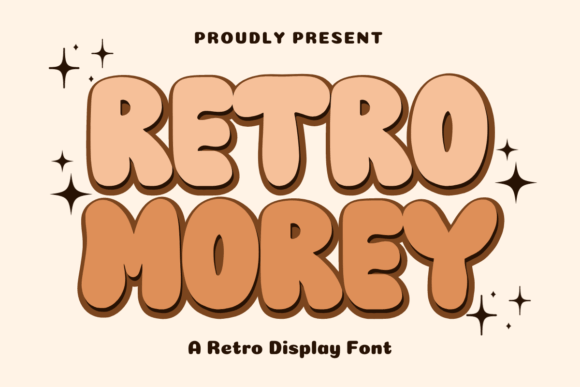
Introducing Retro Morey Font, the ultimate font for your print design needs. Created by SiapGraph, this display font is the epitome of versatility, style, and fun. Whether you're looking to add a touch of nostalgia to your greeting cards or create eye-catching headlines, Retro Morey is the perfect choice.
With its charming retro aesthetic, Retro Morey brings a unique and captivating vibe to any creative project. Its elegant curves and vintage-inspired details instantly transport your audience to a bygone era, evoking feelings of nostalgia and warmth. This font is a true game-changer, allowing you to effortlessly captivate your target audience.
When it comes to print design, Retro Morey reigns supreme. Its carefully crafted letterforms ensure clarity and readability, making it an excellent choice for headlines, posters, and advertisements. No matter the size or scale of your project, Retro Morey guarantees that your message will be delivered with utmost style and impact.
But Retro Morey doesn't stop at aesthetics alone. This font is designed to make a lasting impression, leaving your audience in awe of its artistic flair. Its playful and whimsical nature adds a touch of personality to your designs, making them truly one-of-a-kind. Stand out from the crowd and let Retro Morey elevate your creative vision to new heights.
Not only does Retro Morey excel in style and versatility, but it also offers a seamless user experience. Its smooth curves and precise detailing ensure easy legibility, even at smaller sizes. Say goodbye to blurry or pixelated fonts – Retro Morey guarantees professional-quality results every time.
What sets Retro Morey apart from the rest is its ability to evoke emotions and create connections. Its romantic and beautiful impression will strike a chord with your audience, leaving a lasting impact on their hearts and minds. From wedding invitations to brand logos, Retro Morey adds that extra touch of magic that sets your designs apart.
In conclusion, Retro Morey Font is the best font for print design, hands down. Its versatility, style, and fun-loving nature make it an essential addition to any creative project. Whether you're a professional designer or simply looking to add a touch of retro charm, Retro Morey is the font for you. Don't miss out on the opportunity to make a lasting impression – download Retro Morey and embark on a journey to design greatness today!